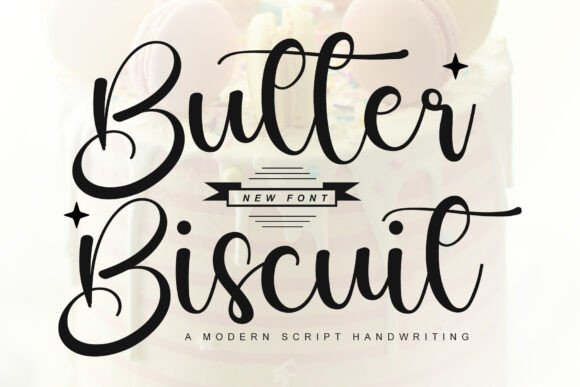
Butter Biscuit Font: A Sweet & Elegant Script Font
Are you looking for a font that adds a touch of warmth and elegance to your designs? Look no further than the Butter Biscuit font. This whimsically charming handwritten script font blends playfulness with refined elegance, making it perfect for a wide range of design projects. In this article, we’ll take a closer look at the Butter Biscuit font, its features, and how you can use it to elevate your designs.
Meet Butter Biscuit
Butter Biscuit is a beautifully crafted script font that is designed to add a touch of sweetness and elegance to your designs. With its smooth, flowing strokes and warm, inviting feel, this font is perfect for creating designs that are both playful and sophisticated.
Whether you’re designing a dessert menu, a heartfelt greeting card, or a chic logo, Butter Biscuit is the perfect choice. This elegant script font is versatile and can be used for a wide range of design projects, from branding and invitations to logos and more.
Benefits of Using Butter Biscuit Font
So, why choose the Butter Biscuit font for your designs? Here are just a few benefits of using this beautiful script font:
- Unique and eye-catching: The Butter Biscuit font is a unique and eye-catching script font that will help your designs stand out from the crowd.
- Playful yet elegant: This font blends playfulness with refined elegance, making it perfect for designs that need to be both fun and sophisticated.
- Versatile: Butter Biscuit is a versatile font that can be used for a wide range of design projects, from branding and invitations to logos and more.
- Easy to read: The smooth, flowing strokes of the Butter Biscuit font make it easy to read, even in small sizes.
Key Features of Butter Biscuit Font
The Butter Biscuit font has a range of features that make it perfect for designs that need a touch of elegance and sophistication. Here are some of the key features of this beautiful script font:
- Smooth, flowing strokes: The Butter Biscuit font features smooth, flowing strokes that give it a warm and inviting feel.
- Playful yet refined: This font blends playfulness with refined elegance, making it perfect for designs that need to be both fun and sophisticated.
- Support for multiple languages: The Butter Biscuit font supports multiple languages, making it perfect for designs that need to be translated.
How to Use Butter Biscuit Font
The Butter Biscuit font is perfect for a wide range of design projects. Here are some ideas for how you can use this beautiful script font:
- Branding: Use the Butter Biscuit font to create a unique and eye-catching brand identity.
- Invitations: This font is perfect for creating beautiful and elegant invitations for weddings, parties, and other special occasions.
- Logos: The Butter Biscuit font can be used to create a wide range of logos, from simple and elegant to complex and intricate.
- Dessert menus: This font is perfect for creating dessert menus that are both elegant and appetizing.
Inspiration for Your Designs
The Butter Biscuit font is perfect for designers who are looking for a unique and elegant script font to add a touch of sophistication to their designs. Here are some ideas for how you can use this font to inspire your designs:
- Create a dessert menu: Use the Butter Biscuit font to create a beautiful and elegant dessert menu that will make your customers’ mouths water.
- Design a wedding invitation: This font is perfect for creating beautiful and elegant wedding invitations that will set the tone for the big day.
- Develop a brand identity: Use the Butter Biscuit font to create a unique and eye-catching brand identity that will help your business stand out from the crowd.
In conclusion, the Butter Biscuit font is a beautiful and elegant script font that is perfect for designs that need a touch of sophistication and elegance. With its smooth, flowing strokes and warm, inviting feel, this font is perfect for a wide range of design projects, from branding and invitations to logos and more.
Whether you’re a professional designer or just starting out, the Butter Biscuit font is a great choice for any design project. So why not give it a try and see how it can elevate your designs?